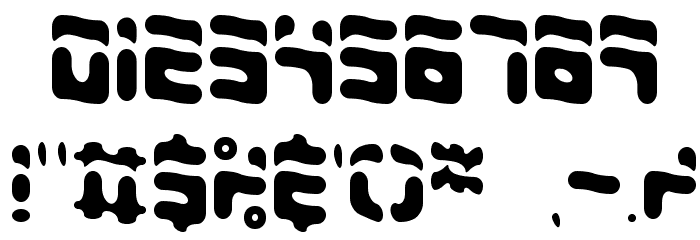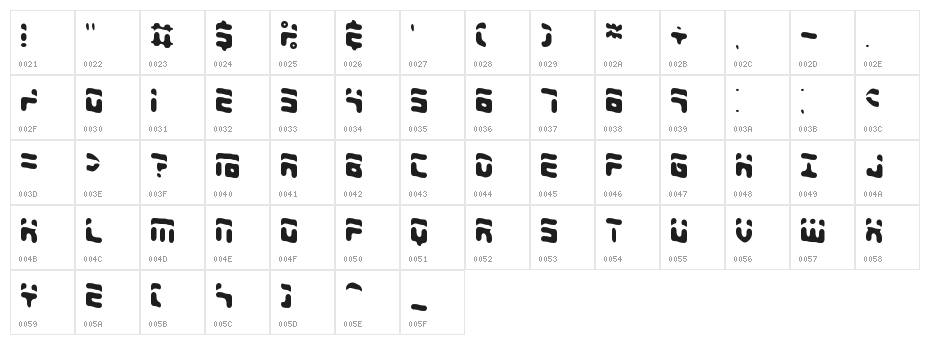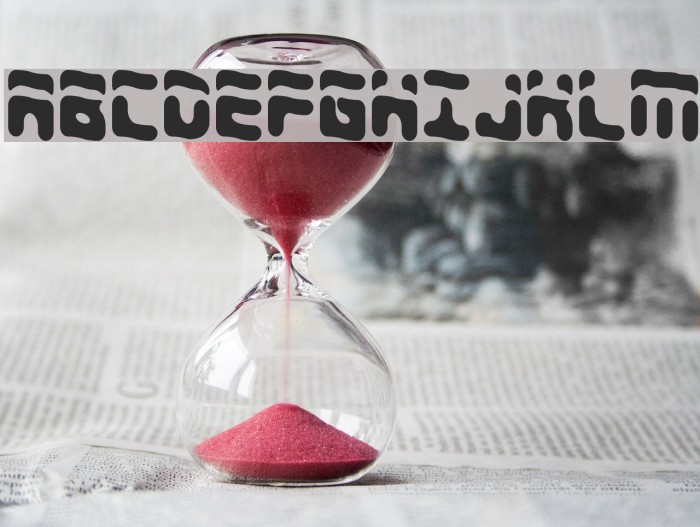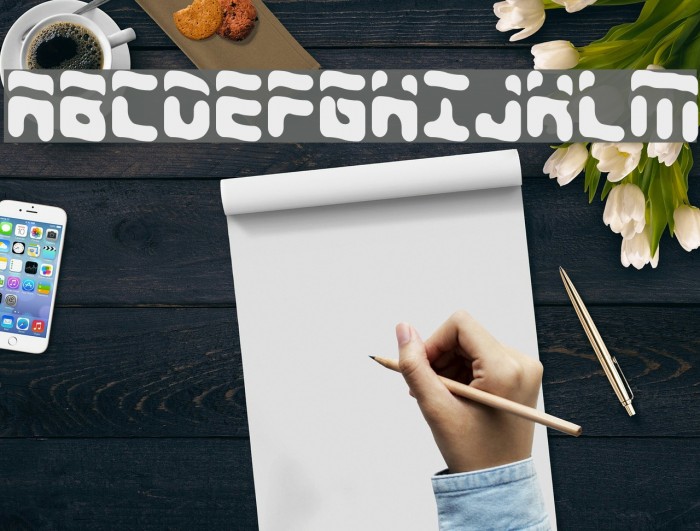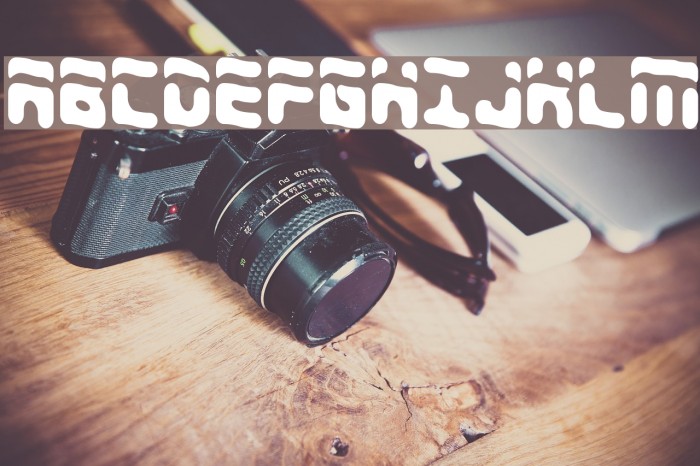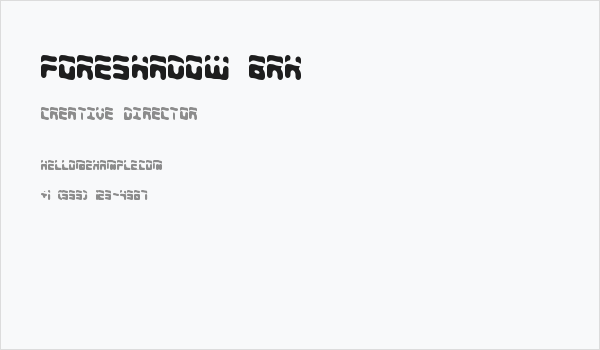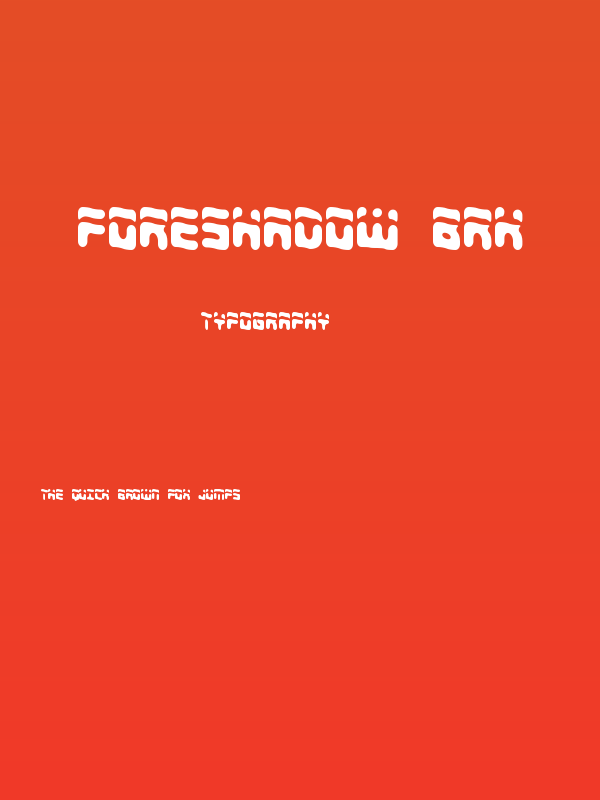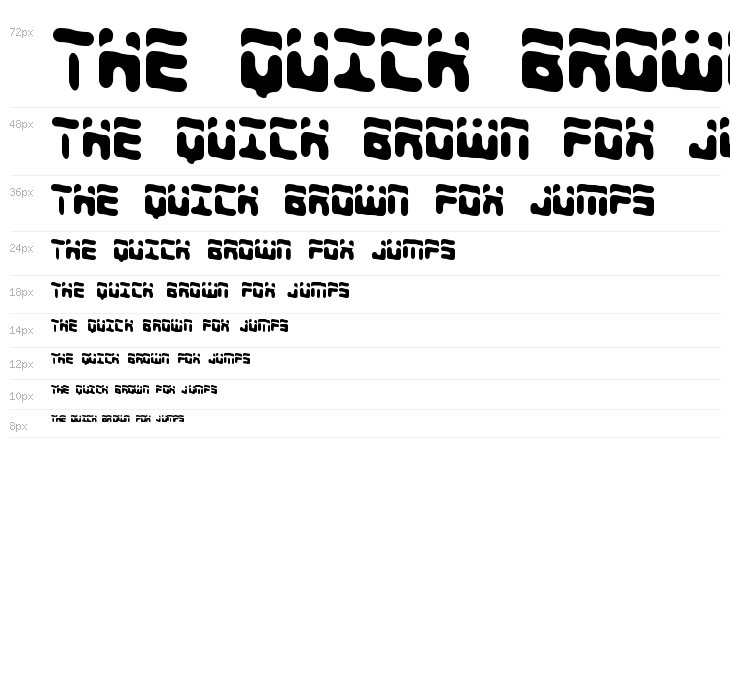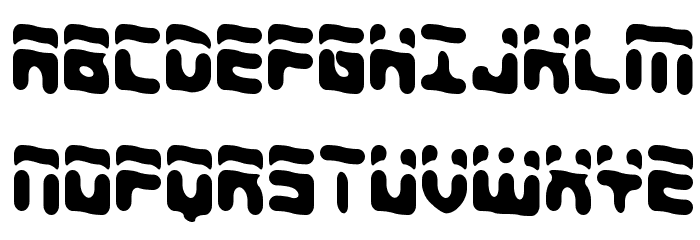
Foreshadow BRK Font
Foreshadow BRK Description
This font features a bold and playful design with a distinctly rounded and bubbly appearance. Each character is heavily stylized, with thick strokes that create a sense of weight and presence. The letters have a unique, almost cartoonish quality, with exaggerated curves and a slightly irregular form that adds to its charm. The overall look is both modern and retro, making it versatile for various creative applications. The font's boldness ensures it stands out, while the rounded edges give it a friendly and approachable feel.
| Proposed Projects | Ideal for children's books, playful branding, posters, and creative digital content. |